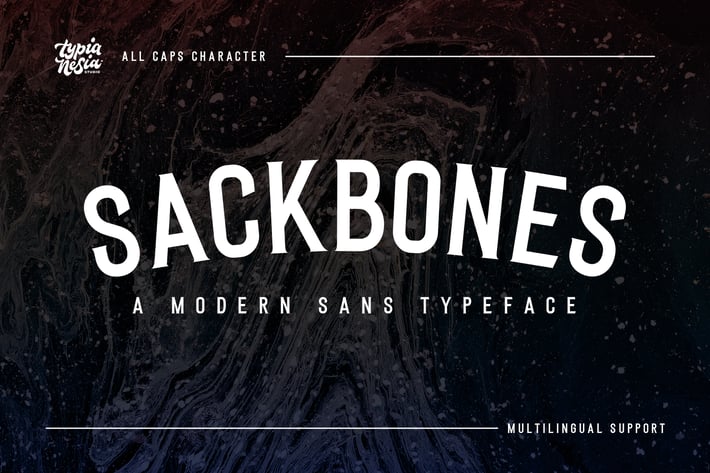
Sackbones Sport Font
yipianesia
Sackbones Sans Serif - Allcaps Sport Display Font.
Sackbones Sans Serif font is perfect for your up coming projects. Such as logo branding, editorial design, stationery design, sport design, blog design, modern advertising design, card invitation, art quote, home decor, book/cover title, special events and any more.